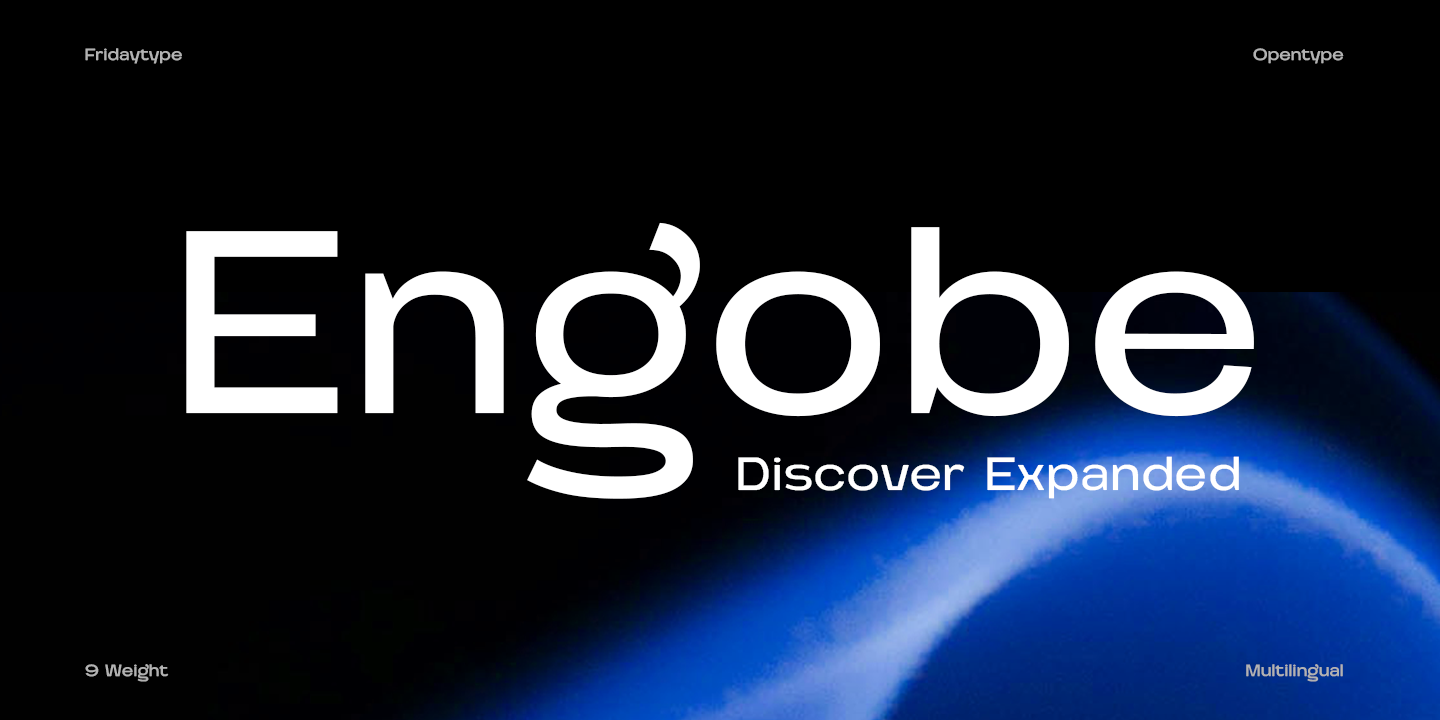
Engobe Expanded Font is perfect for contemporary art gallery exhibitions, modern architectural presentations, minimalist brand identities, design studio portfolios, abstract sculpture catalogs, avant-garde fashion campaigns, ceramic pottery studio branding, contemporary furniture showrooms, artistic material documentation, and sophisticated cultural institution communications. Its refined artistic character makes it ideal for projects requiring contemporary elegance and creative sophistication.
What makes Engobe Expanded Font exciting is its sophisticated fusion of artistic expression and contemporary design with expanded letterforms and refined proportions that capture the essence of modern creative culture and artistic innovation. The font features carefully balanced widths, subtle geometric influences, and contemporary character construction that create sophisticated artistic atmosphere and cultural credibility. Its creative personality brings modern elegance to contemporary designs while maintaining the professional quality essential for artistic institutions and cultural communications. The carefully crafted expanded elements ensure visual presence while preserving the distinctive character that embodies the essence of contemporary art and creative excellence.
Engobe Expanded Font comes in multiple artistic variations including Light, Regular, Medium, Bold, and Ultra styles. Each family member maintains the distinctive expanded character while offering comprehensive flexibility for contemporary typography and artistic brand system development. The complete font family includes stylistic alternates, cultural symbols, and artistic punctuation marks that enhance the sophisticated aesthetic and provide essential tools for creative communication excellence.
Whether you're developing artistic brands, cultural institutions, or contemporary creative projects, Engobe Expanded Font Free Download provides the sophisticated elegance needed to communicate with culturally conscious audiences and art enthusiasts who appreciate contemporary design and creative innovation. The font's artistic appeal resonates with designers, artists, and cultural professionals seeking authentic creative credibility and modern sophistication. Its comprehensive character set includes artistic symbols and contemporary marks, making it perfect for creating complete cultural brand systems and memorable artistic storytelling across diverse creative applications and sophisticated design projects that celebrate contemporary artistic expression and cultural excellence.